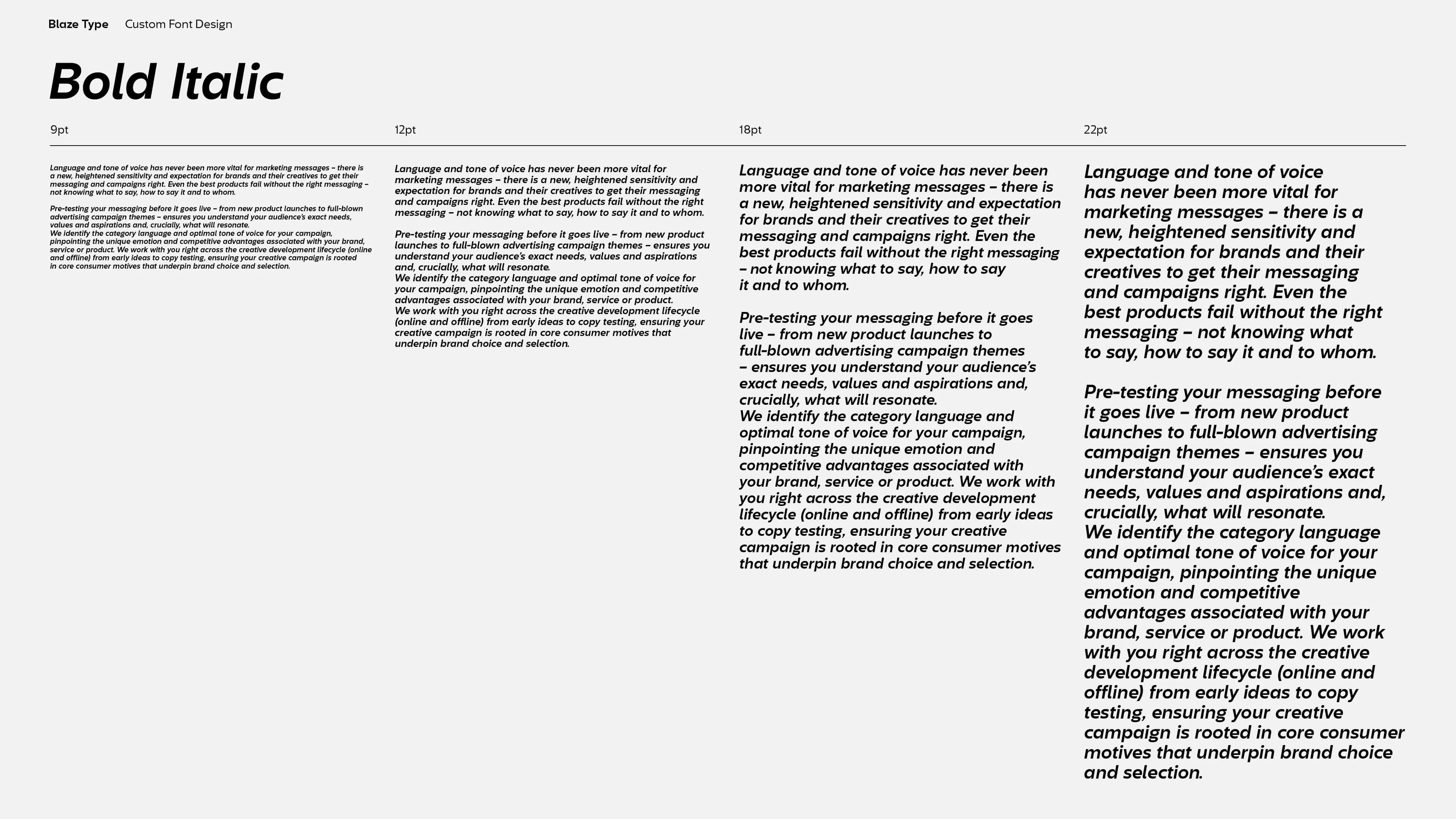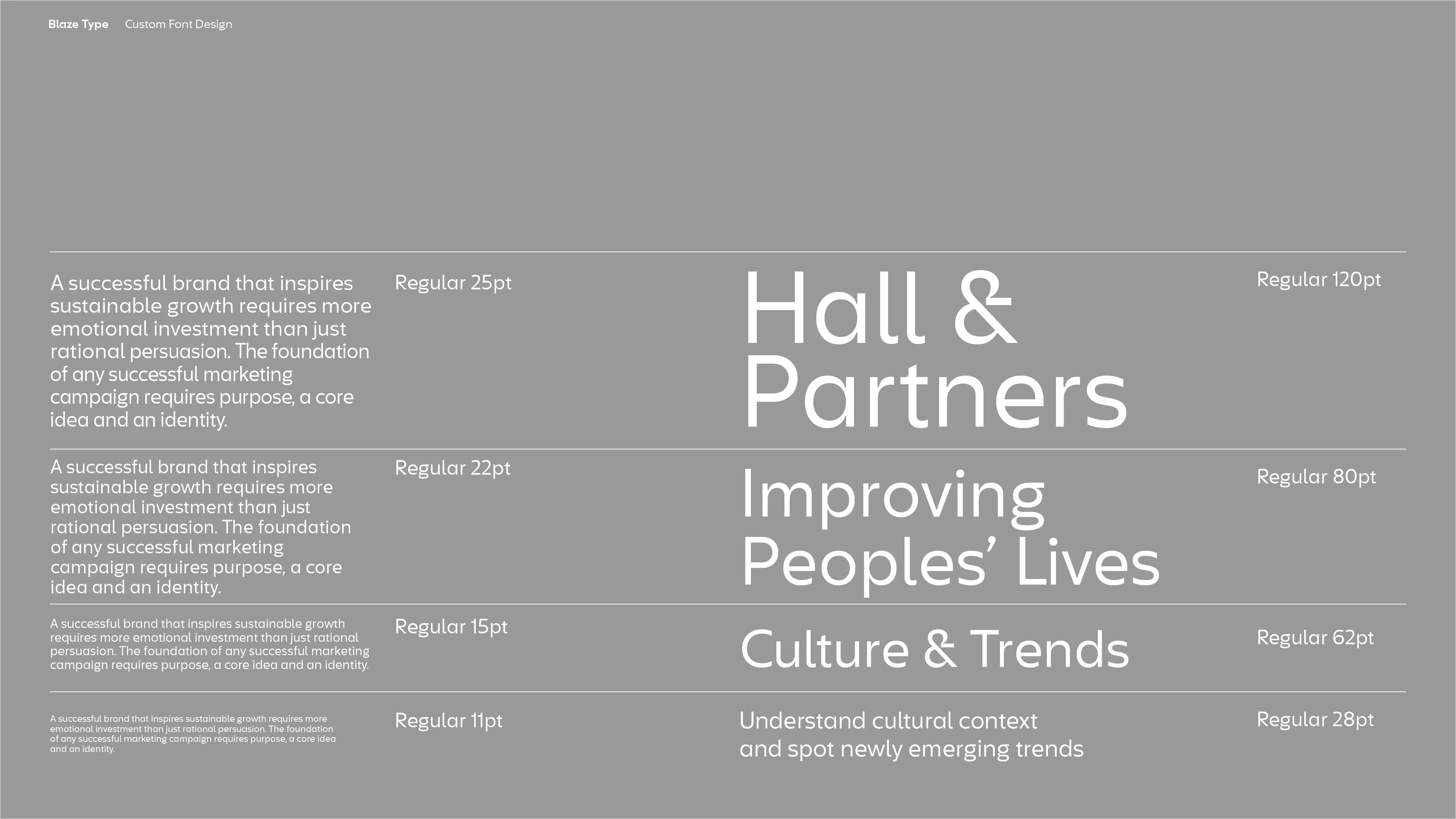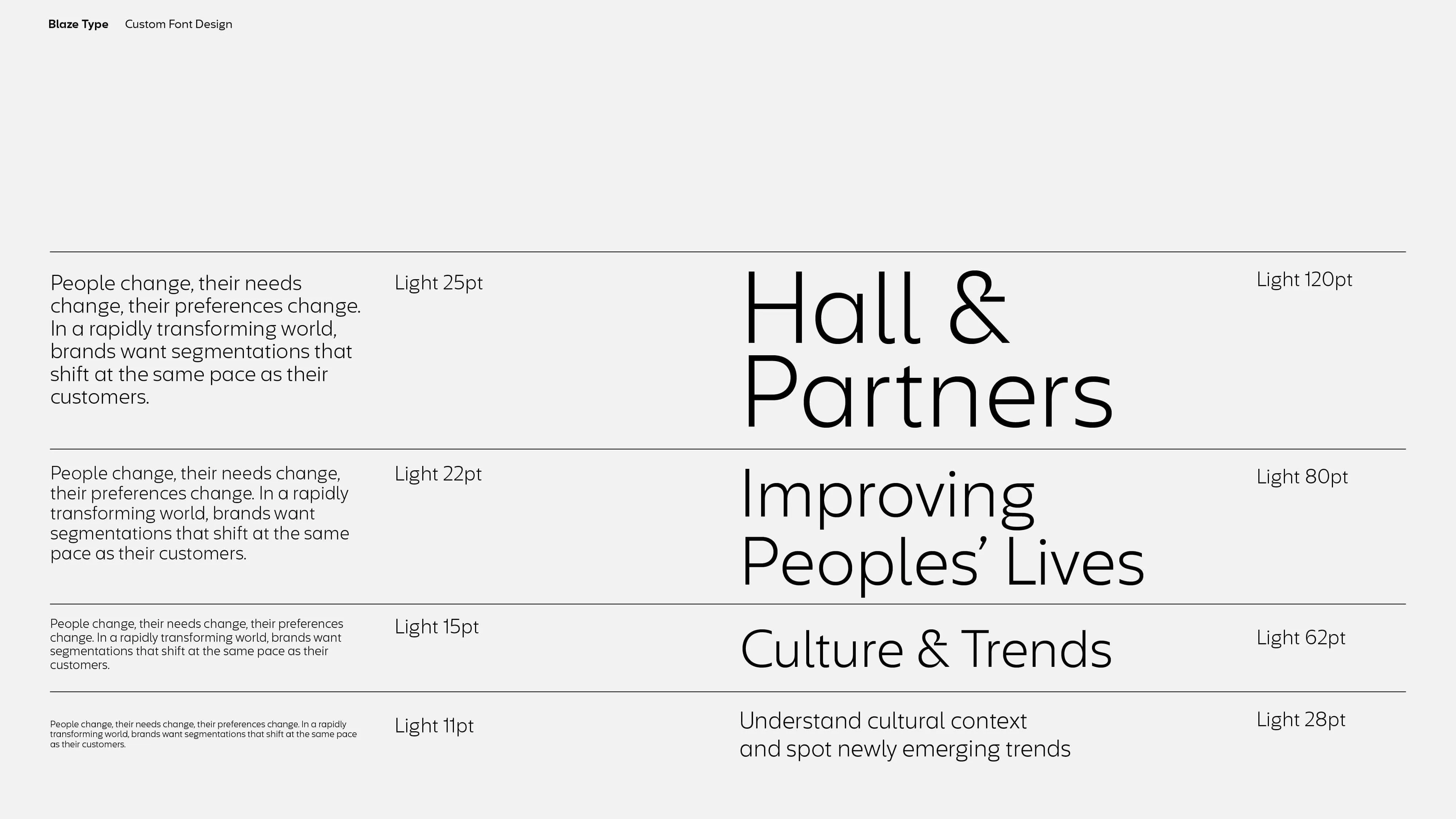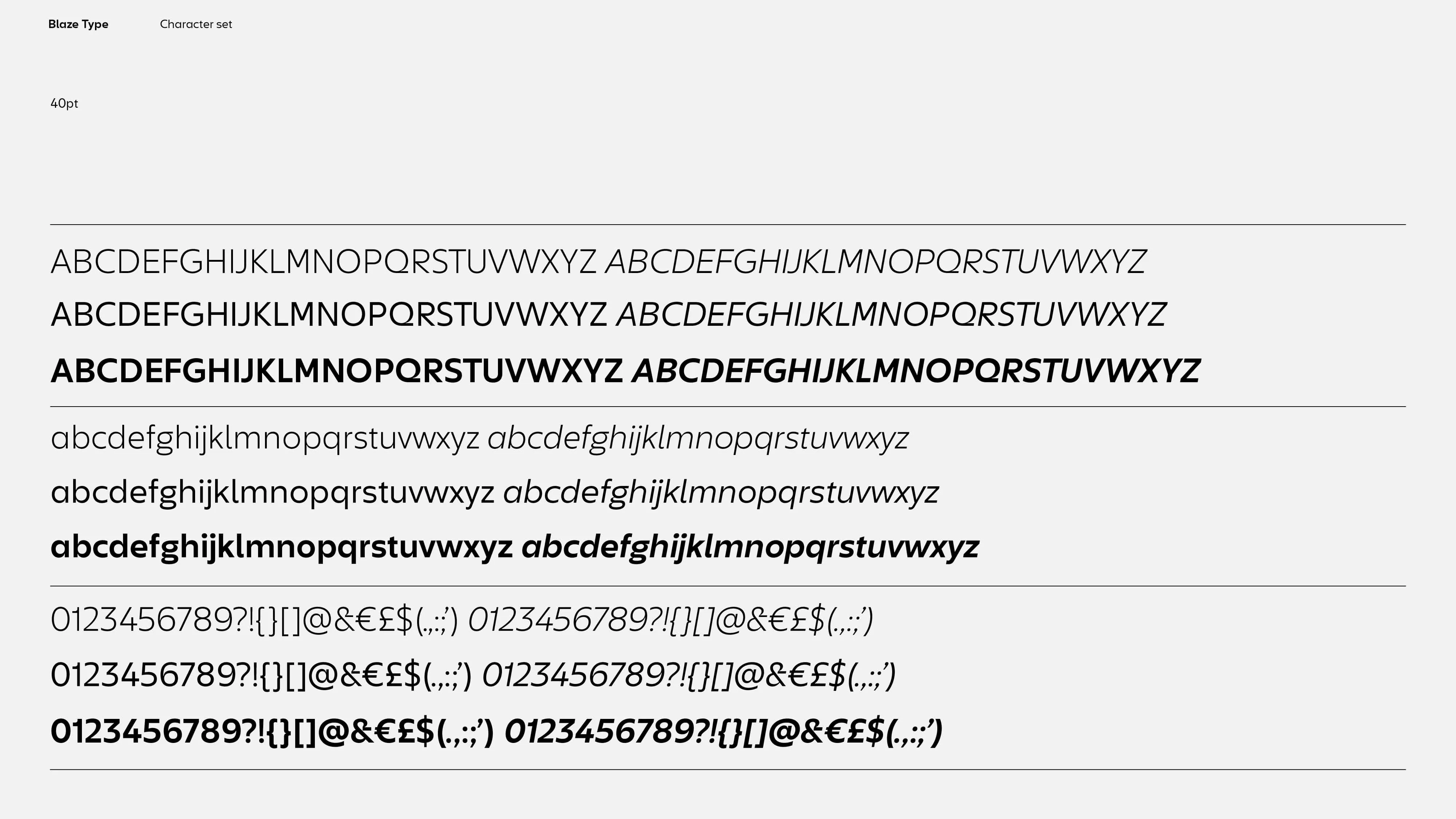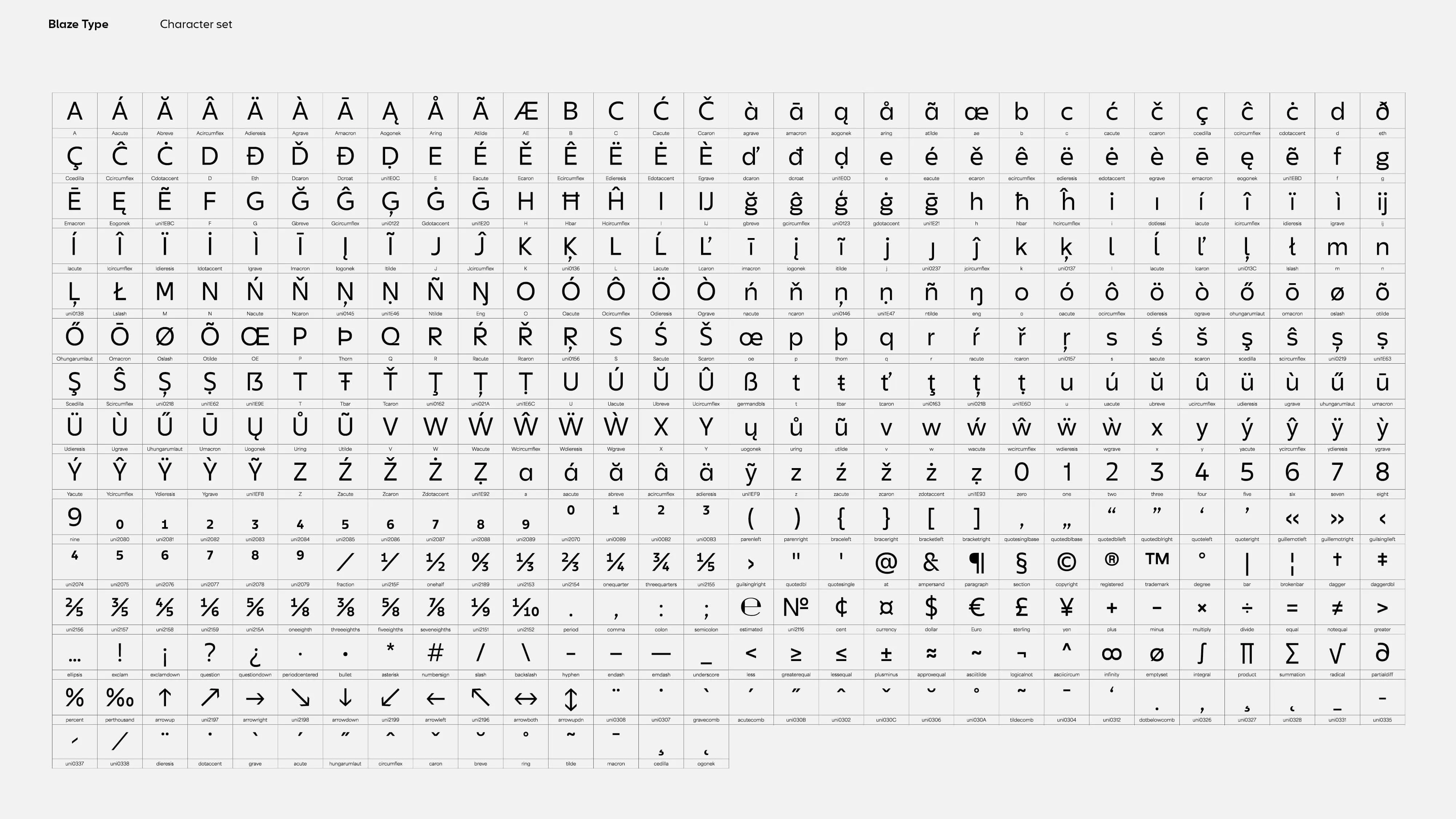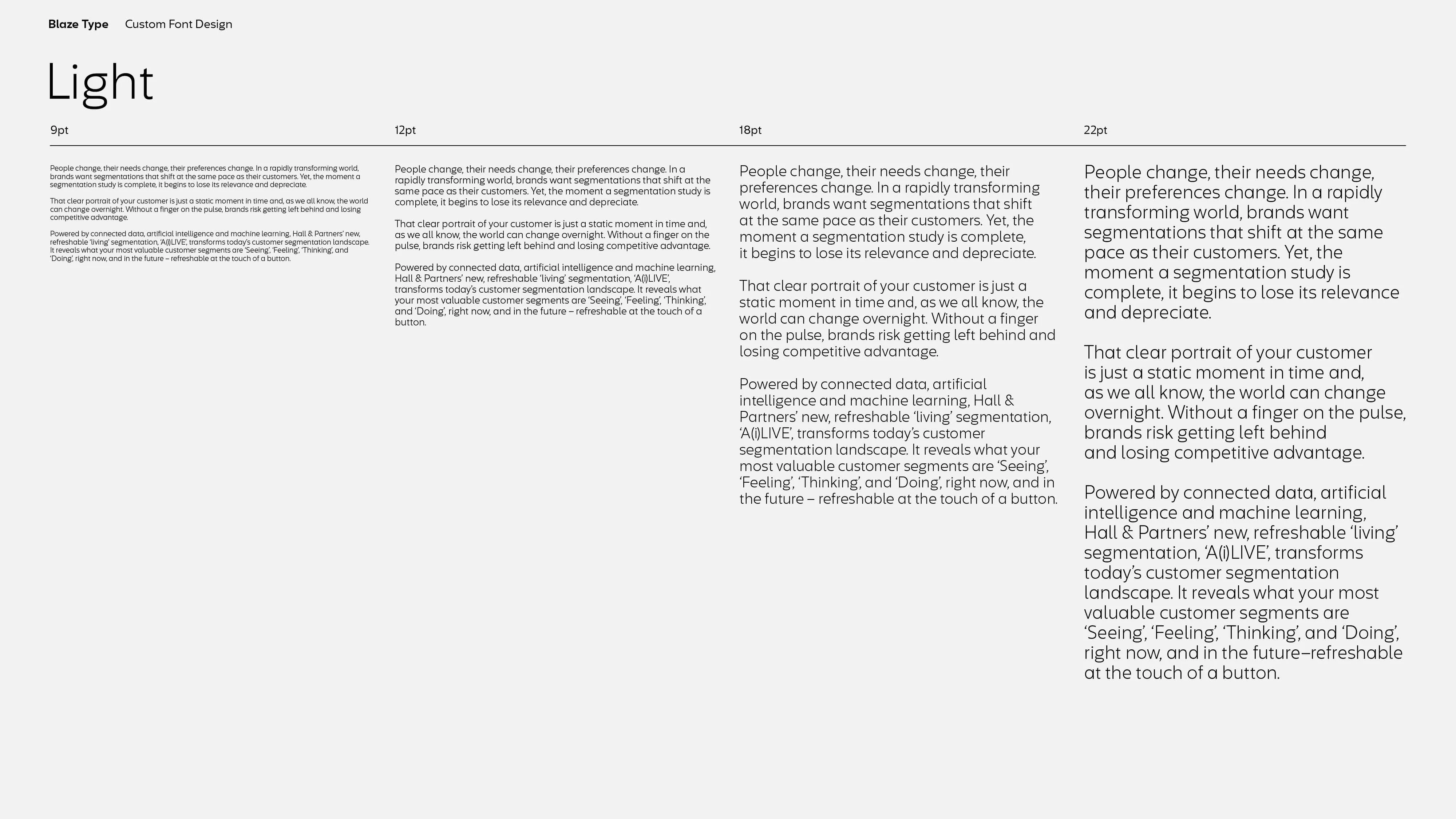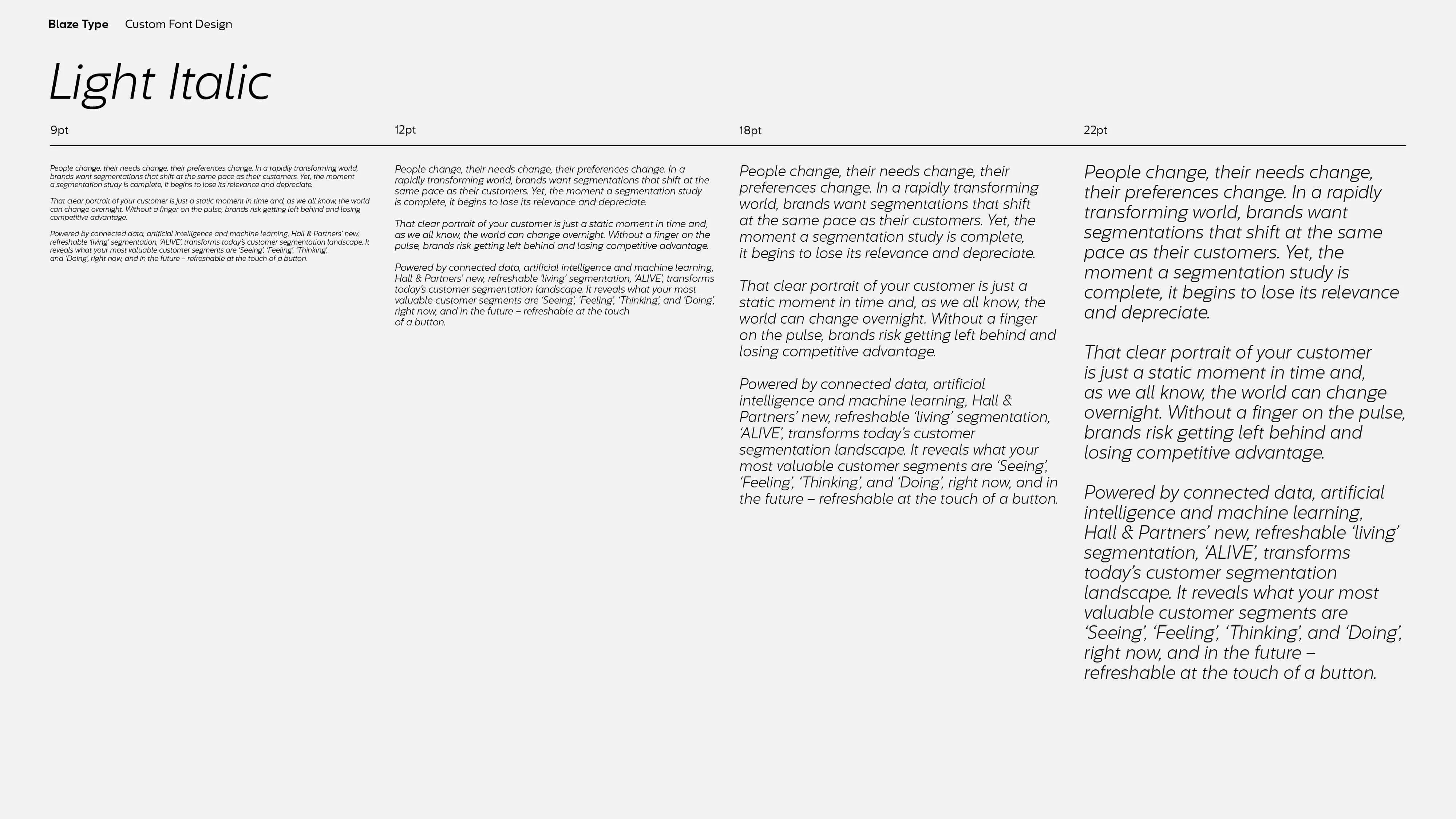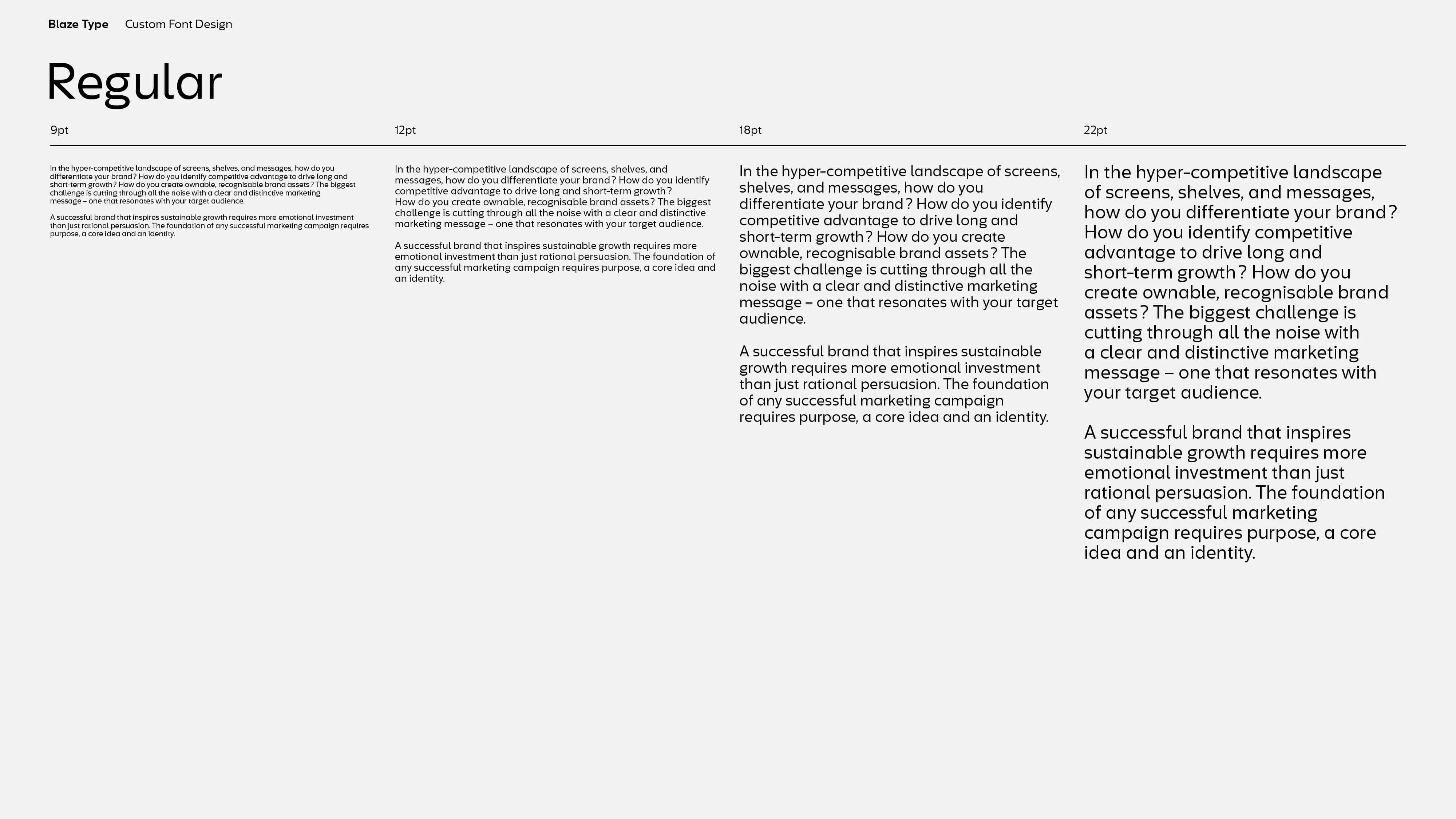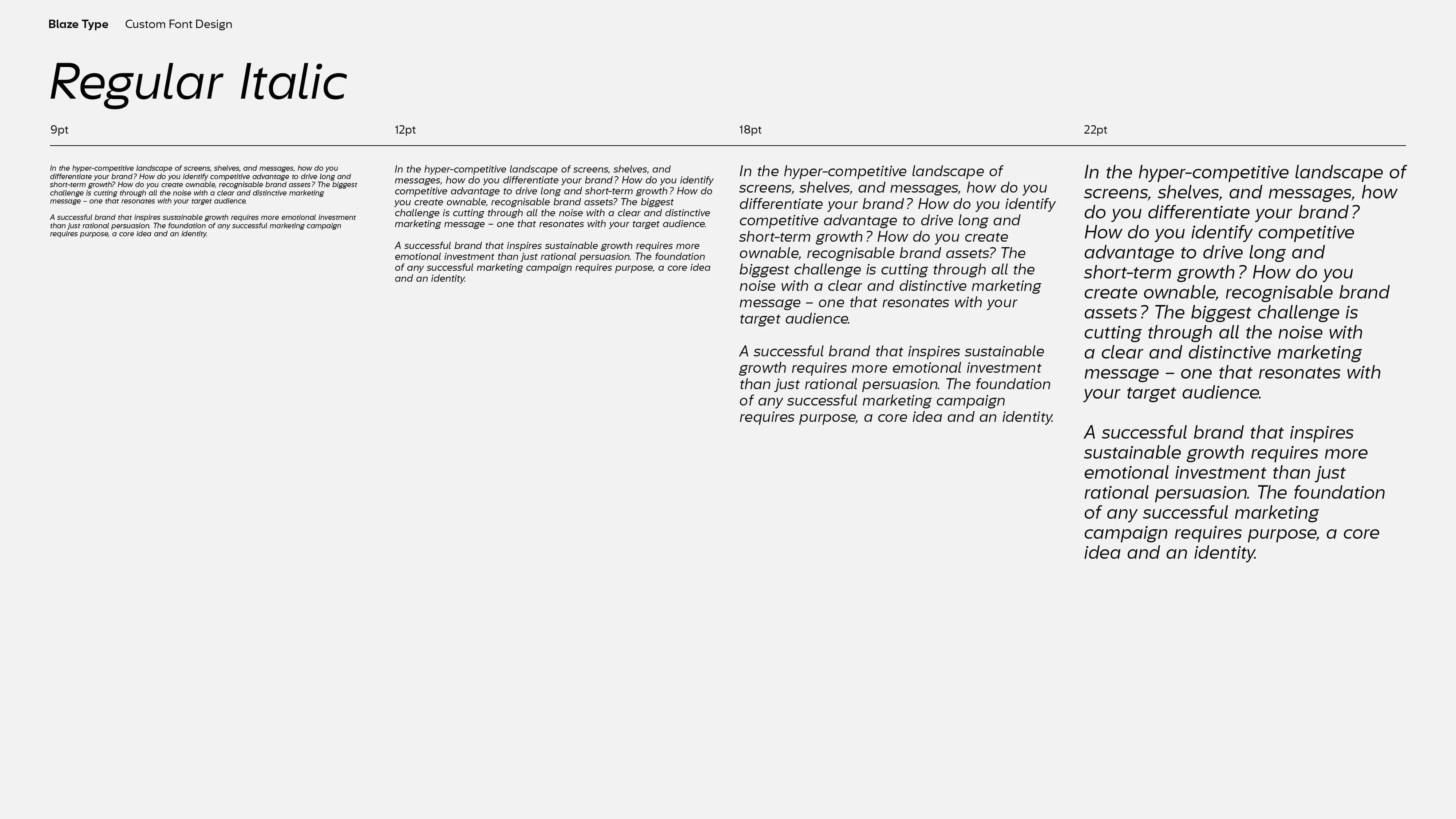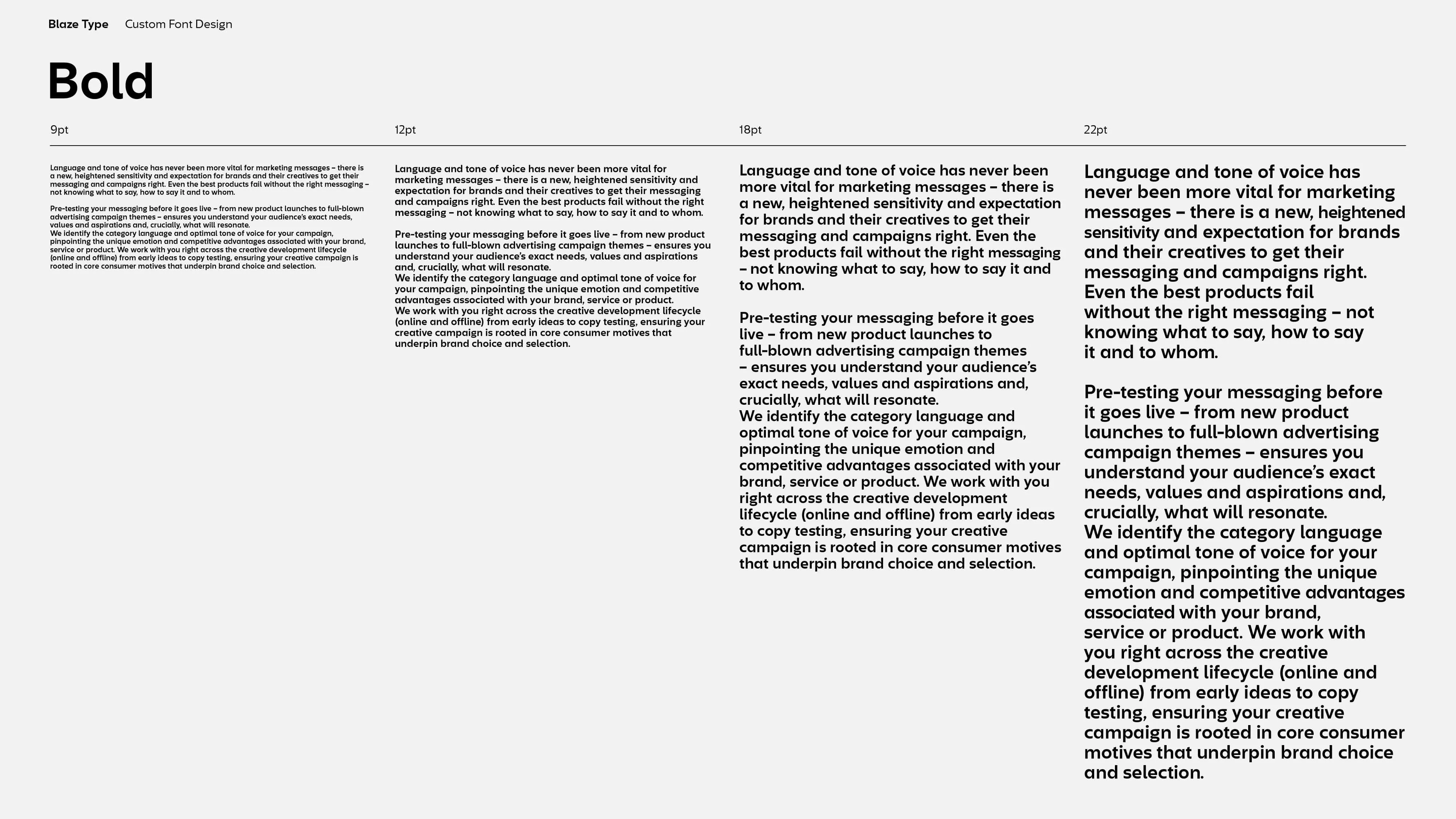
A brand new voice through font design
A full rebrand, a new font family
We were approached by Hall & Partners late 2021 to collaborate with them in the design of a full font family system to go along their new branding guidelines.
Hall & Partners is a global insight agency that specialises in quantitative and qualitative market research, data analytics and strategic consultancy.
Hall & Partners is a team of unconventional thinkers, obsessed with how marketing influences the relationship between people, brands, and culture. Born out of adland, we are the insight agency known for weaving creativity with science. They distill data through a strategic lens to reveal ‘uncommon insights’ – human truths tailored to individual brands, not blackbox data available to the masses. They partner with clients to shape brand strategy and optimize brand and campaign performance. Their award-winning approach amplifies insights across every business area, propelling marketing decision-making to create an unmatched competitive advantage.
Now, designing a font family is no small feat. But even so, designing one for such an iconic client and for their whole new brand identity was one of the most interesting experience we've had.
If a logo is a company's face, a font is it's voice
I always loved that analogy between logo & font for brand systems and I strongly believe it to be true. Choosing a font for a brand design is not something trivial and any graphic designer versed into the matter will tell you that. Picking the right font is a skilled task one needs to attend to when designing a brand system.
H&P is a company filled with highly skilled people, working on a daily basis with brands all around the world. Their font family has to show their mastercraft, their reliability and their flexibility towards contemporary challenges. They've been around for over 25 years and are here to stay and stand the trial of time.
A sans serif font family revolving around three different weights: Light, Regular, Bold & matching Italics allowing their brand guidelines to go through all the different kind of uses they might need: from digital communication to intern uses. The font family would also cover a wide range of Latin languages.
A key glyph of this custom font — and one of our favourite's to design — in this custom font is the Ampersand (&).
Hall and Partners brand new identity, viewable across their new website, is a great visual example on how a custom font design can support a brand and make it even more distinguishable.